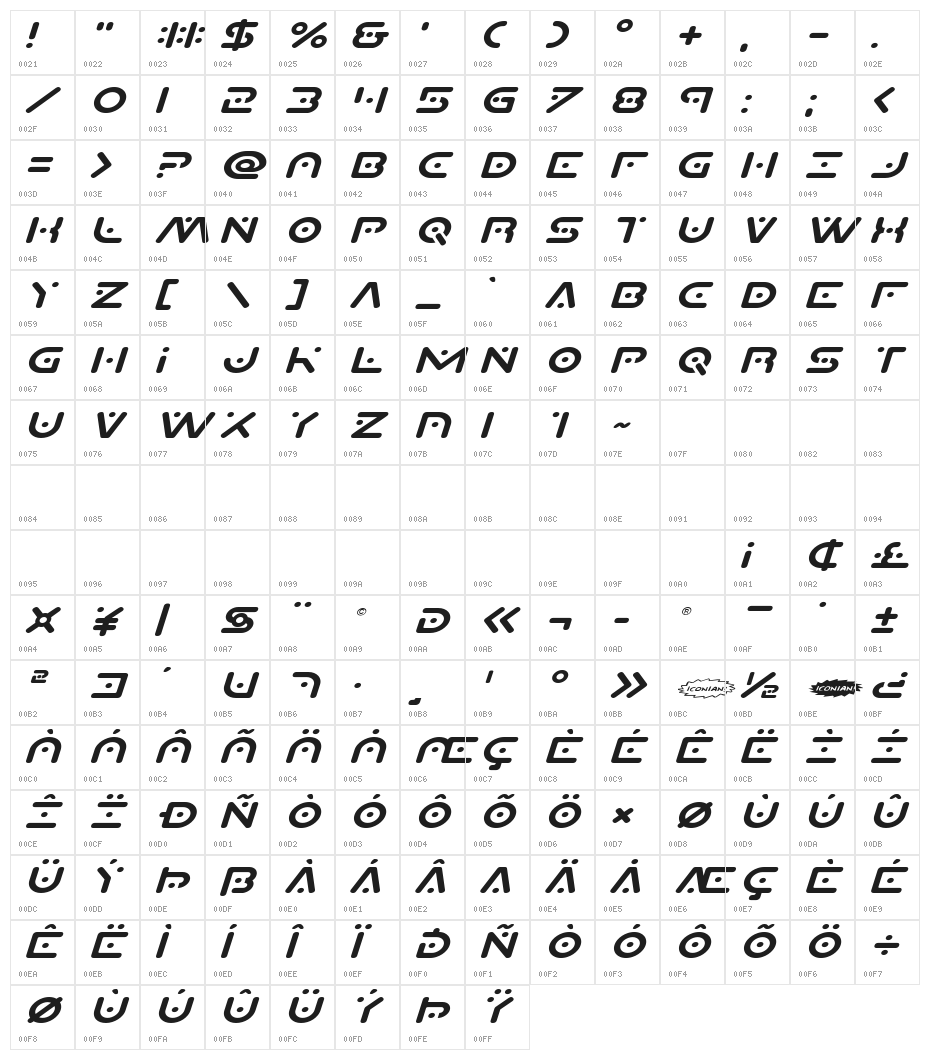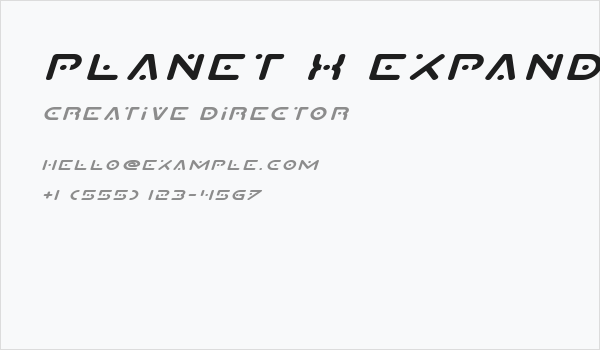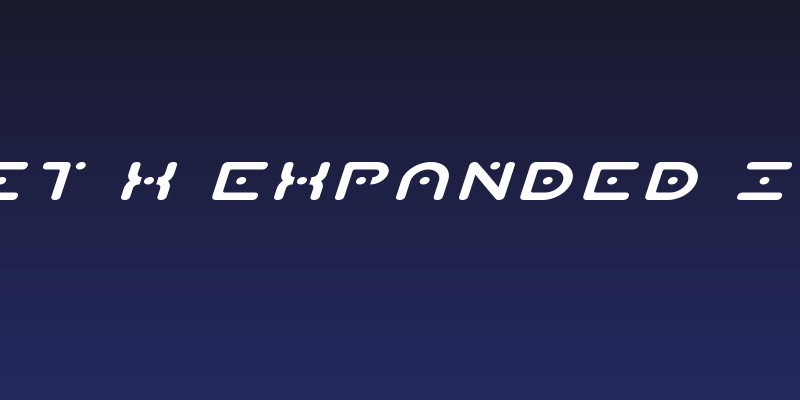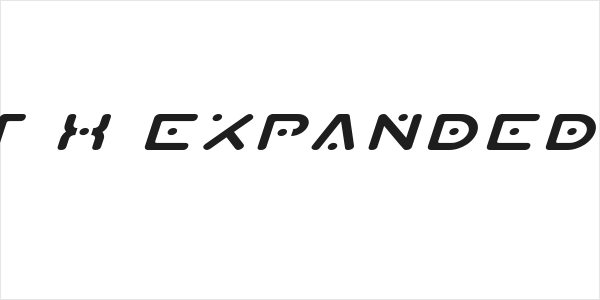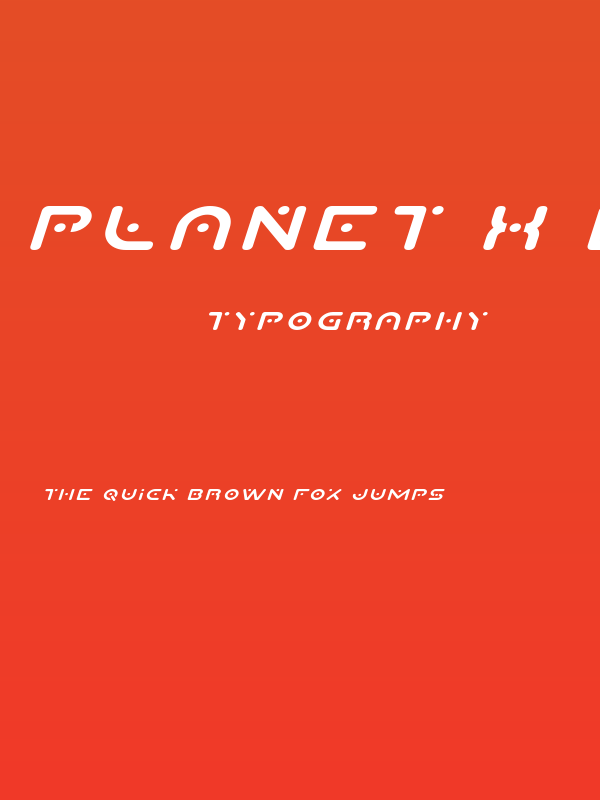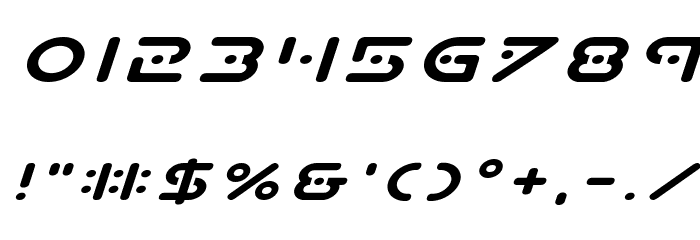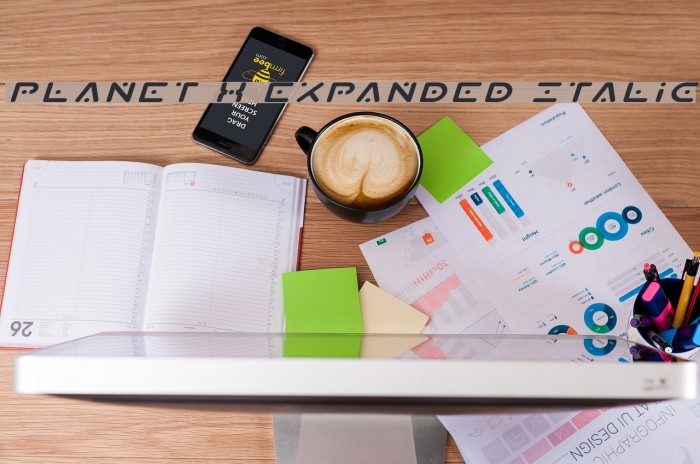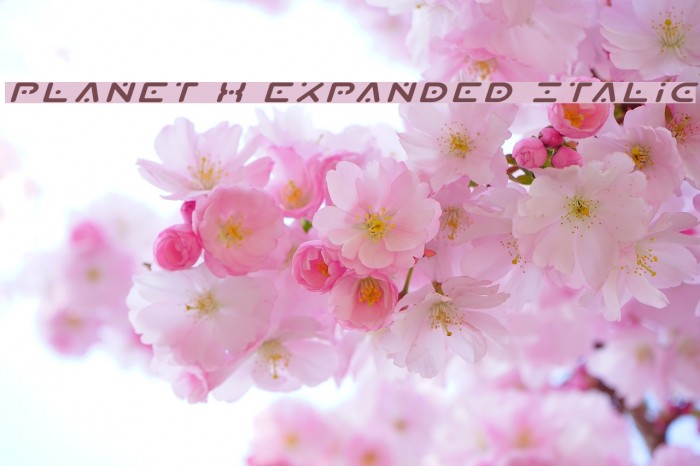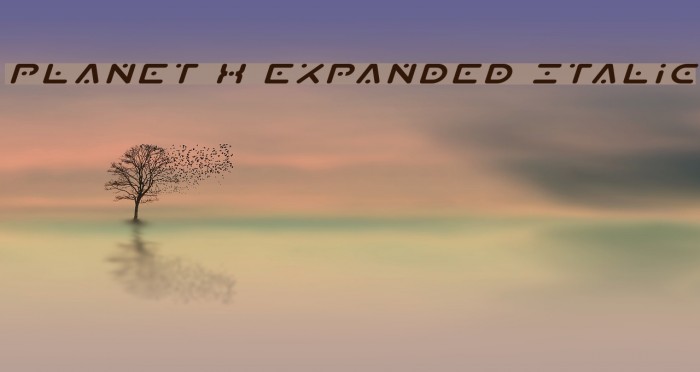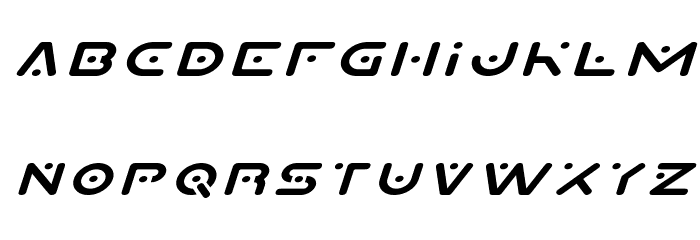
Planet X Expanded Italic Font
Planet X Expanded Italic Description
This futuristic and dynamic font features a bold and expanded style with a distinct italic slant. The characters are designed with a modern, space-age aesthetic, incorporating smooth curves and sharp angles that create a sense of motion and speed. The uppercase and lowercase letters maintain a consistent style, with unique cutouts and rounded edges that add to its distinctive look. The numerals and special characters are equally stylized, ensuring a cohesive appearance across all text elements. This font's expanded width and bold weight make it highly visible and impactful, ideal for projects that require a strong visual presence.